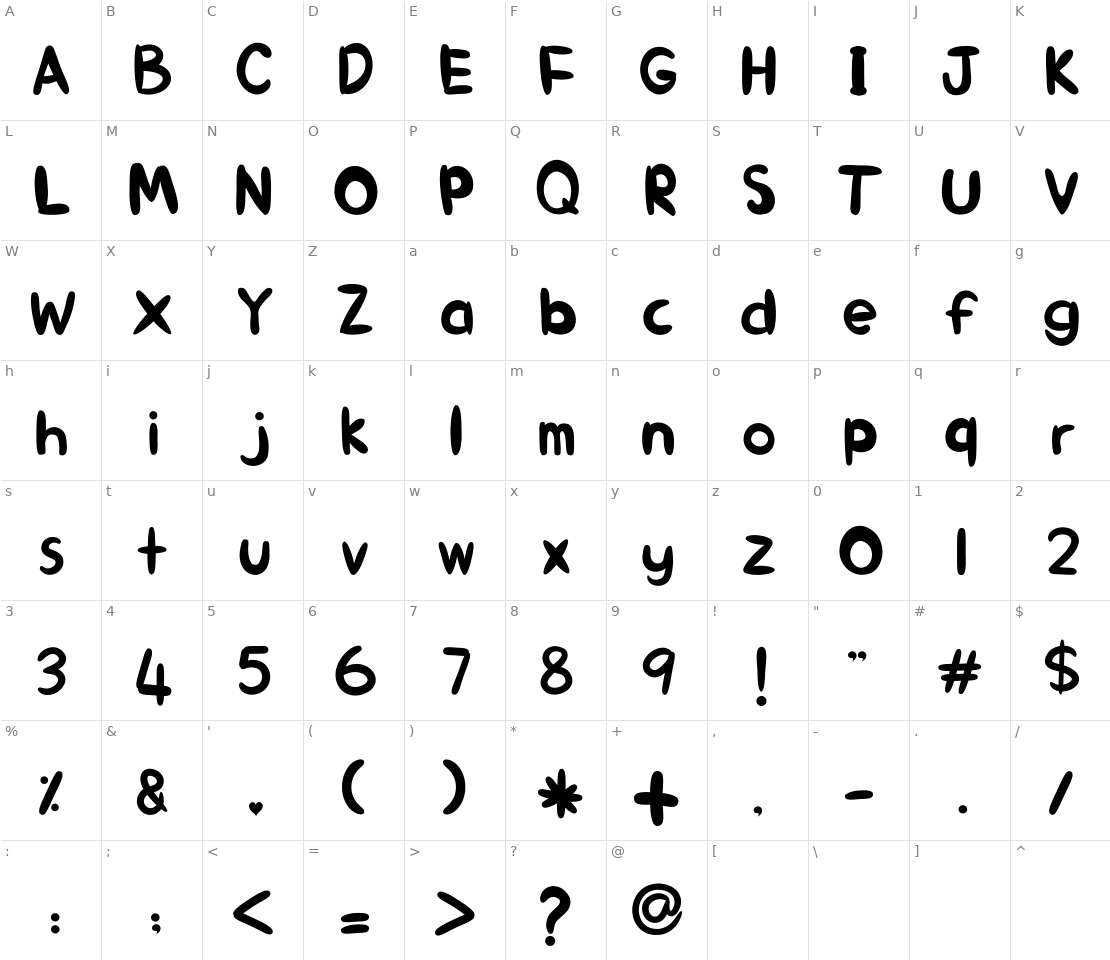
Alin Kid
Alin Kid is a bold, rounded handwritten face from Haslinda Adnan with bubbly letterforms that feel like a child's enthusiastic marker writing. The strokes are thick and friendly, with soft edges that keep everything approachable and warm. A natural pick for children's books, educational materials, and playful branding where you want something that reads as genuine and lighthearted.